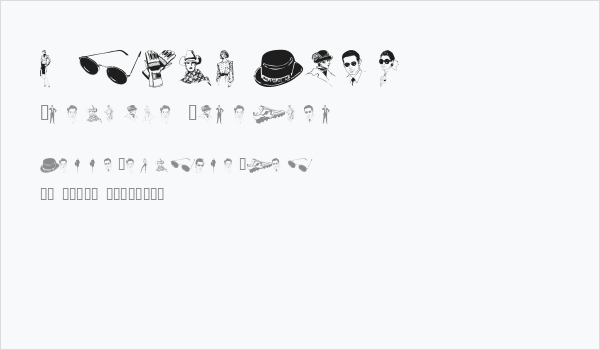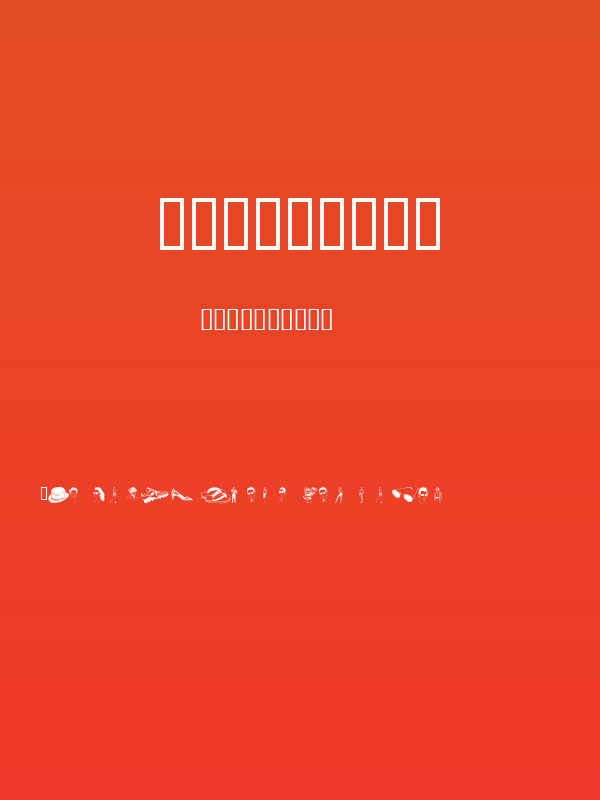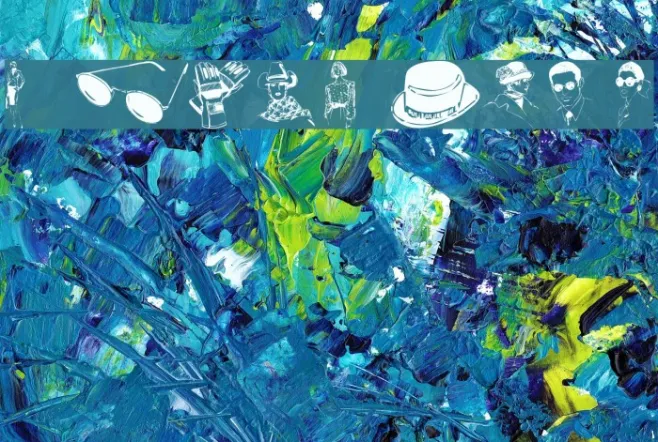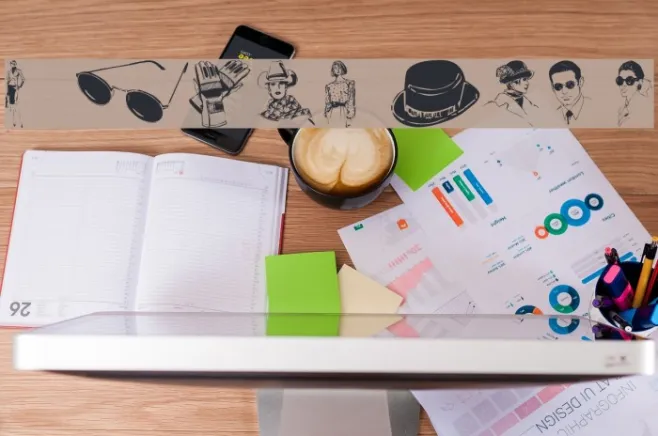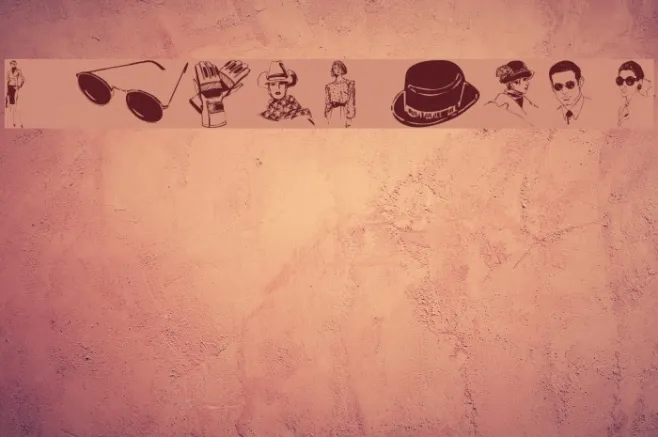
wmfashion Font
wmfashion Description
A decorative font composed of detailed black-and-white illustrations related to fashion, including accessories, shoes, hats, sunglasses, and stylized figures in various poses. Each character is represented by a unique fashion-themed drawing, making the font highly illustrative and thematic.
| Overall Style | Decorative, Thematic, Artistic |
| Use Case | Logos, Headlines, Posters, Themed Graphics |
| Proposed Projects | Fashion magazines, boutique branding, event invitations, posters, themed social media graphics. |